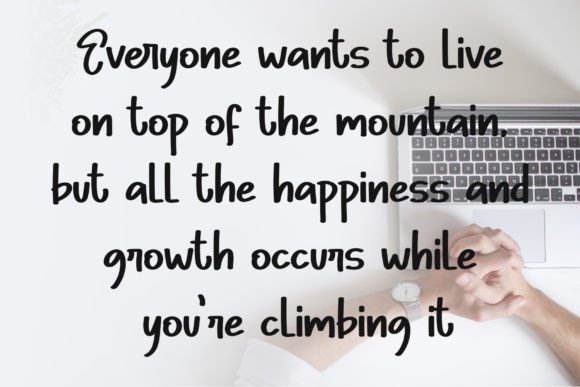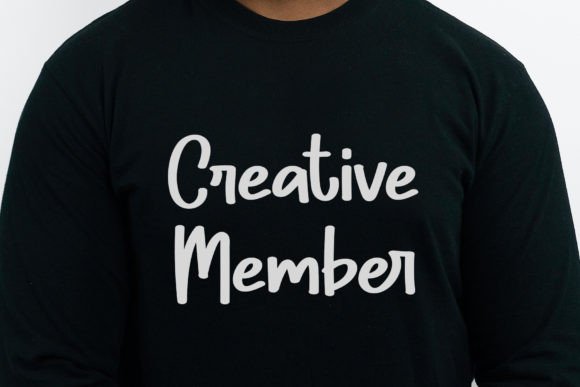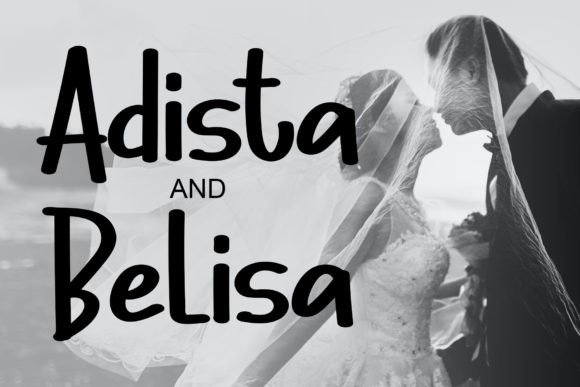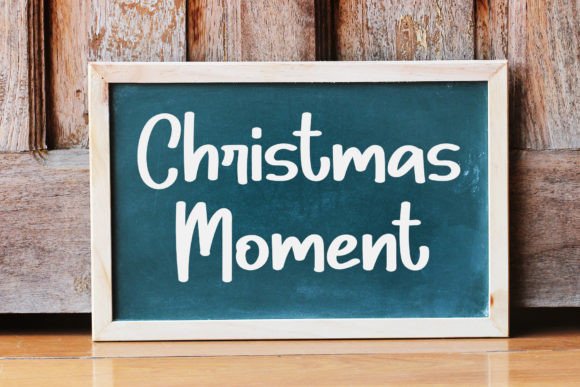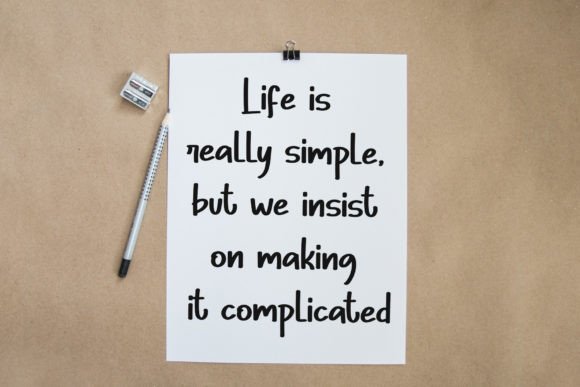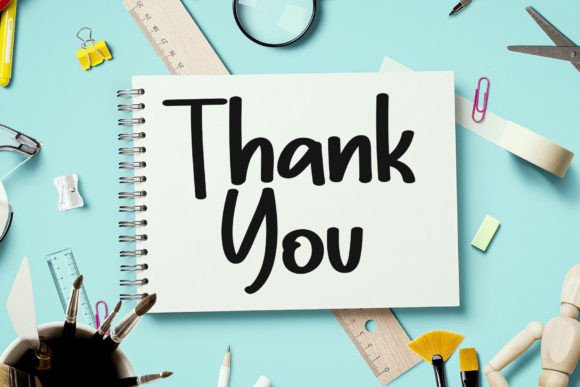
Introducing Grinder Font: The Ultimate Holiday Typeface for Designers and Crafters
Are you looking for a font that embodies the festive spirit of the holiday season? Look no further than Grinder Font, a playful and enchanting typeface that’s perfect for adding a touch of magic to your Christmas cards, decorations, and more. With its whimsical design and PUA encoding, Grinder Font is a must-have for designers and crafters who want to create unique and eye-catching holiday projects.
The Features of Grinder Font
Grinder Font is a carefully crafted typeface that’s designed to bring the joy and wonder of the holiday season to your designs. Here are some of its key features:
- Festive and Playful Design: Grinder Font features a playful and festive design that’s perfect for the holiday season. Its unique and whimsical style is sure to add a touch of magic to your projects.
- Enchanting Swashes: The font comes adorned with enchanting swashes that add an extra touch of elegance and sophistication to your designs.
- PUA Encoding: Grinder Font is PUA encoded, which means you can access all of the amazing glyphs and ligatures with ease. This makes it easy to use the font in your designs and projects.
Uses for Grinder Font
Grinder Font is a versatile typeface that can be used in a variety of holiday projects, including:
- Christmas Cards: Use Grinder Font to create unique and eye-catching Christmas cards that will stand out from the crowd.
- Holiday Decorations: Add a touch of festive magic to your holiday decorations with Grinder Font. Use it to create signs, banners, and other decorative items.
- Digital Projects: Grinder Font is perfect for digital projects, such as holiday-themed social media graphics, blog posts, and more.
- Crafting Projects: Use Grinder Font to add a personal touch to your crafting projects, such as handmade cards, gift tags, and more.
Why Designers and Crafters Love Grinder Font
Grinder Font has quickly become a favorite among designers and crafters, and for good reason. Here are some reasons why:
- Easy to Use: Grinder Font is easy to use, even for those who are new to font design. Its PUA encoding makes it simple to access all of the glyphs and ligatures.
- High-Quality Design: Grinder Font features a high-quality design that’s perfect for professional-looking projects.
- Unique and Whimsical Style: The font’s unique and whimsical style sets it apart from other holiday fonts on the market.
Tips for Using Grinder Font
Here are some tips for using Grinder Font in your holiday projects:
- Experiment with Different Sizes and Colors: Don’t be afraid to experiment with different sizes and colors to find the perfect look for your project.
- Pair with Other Fonts: Grinder Font pairs well with other fonts, so feel free to get creative and try out different combinations.
- Use the Swashes to Add Elegance: The swashes in Grinder Font are designed to add an extra touch of elegance to your designs. Use them to create beautiful and eye-catching projects.
Grinder Font is a must-have for designers and crafters who want to add a touch of holiday magic to their projects. With its festive and playful design, enchanting swashes, and PUA encoding, it’s the perfect typeface for creating unique and eye-catching holiday projects. Whether you’re making Christmas cards, decorations, or digital projects, Grinder Font is sure to bring joy and wonder to your designs.